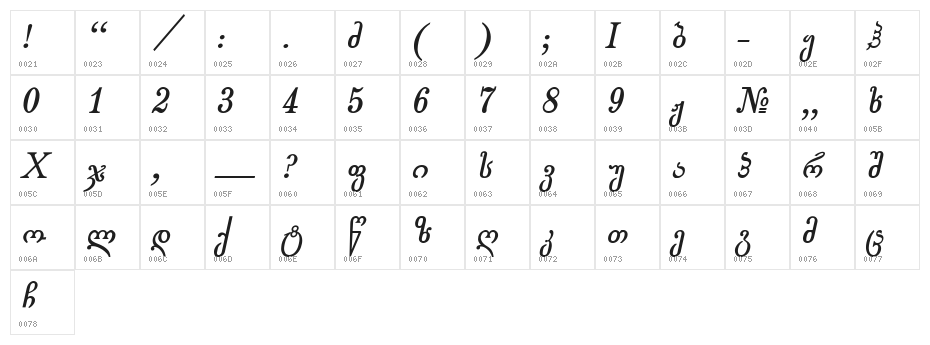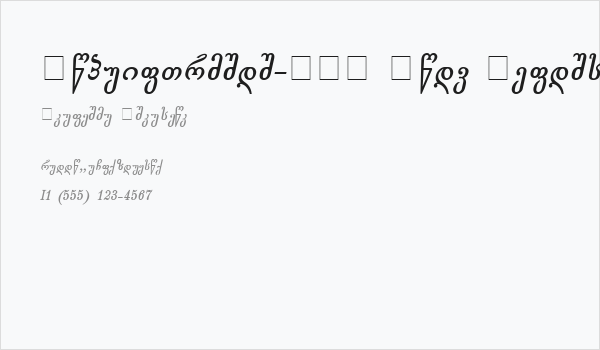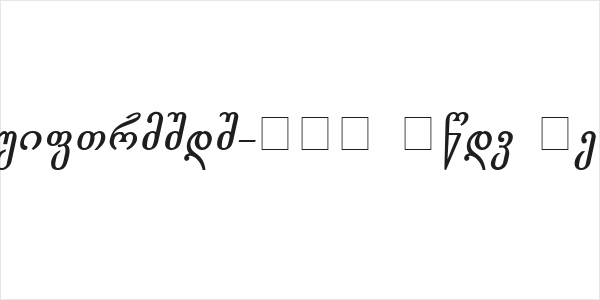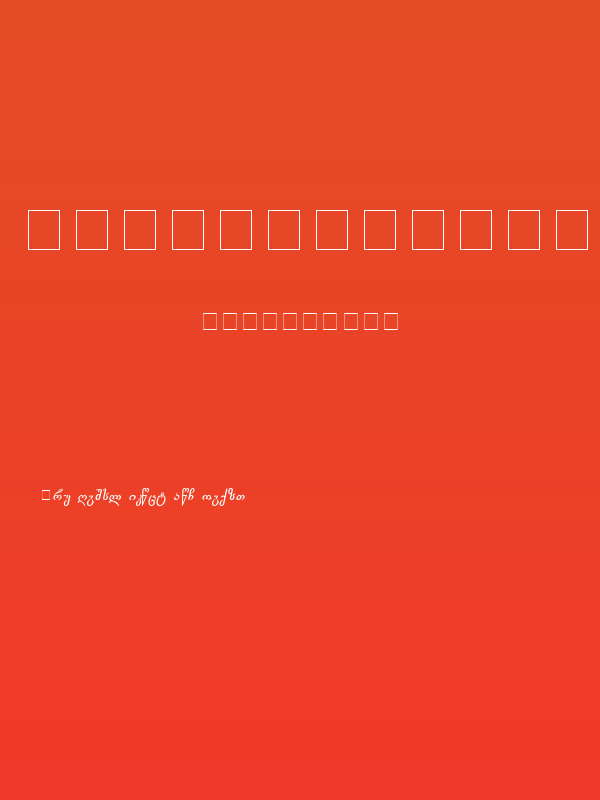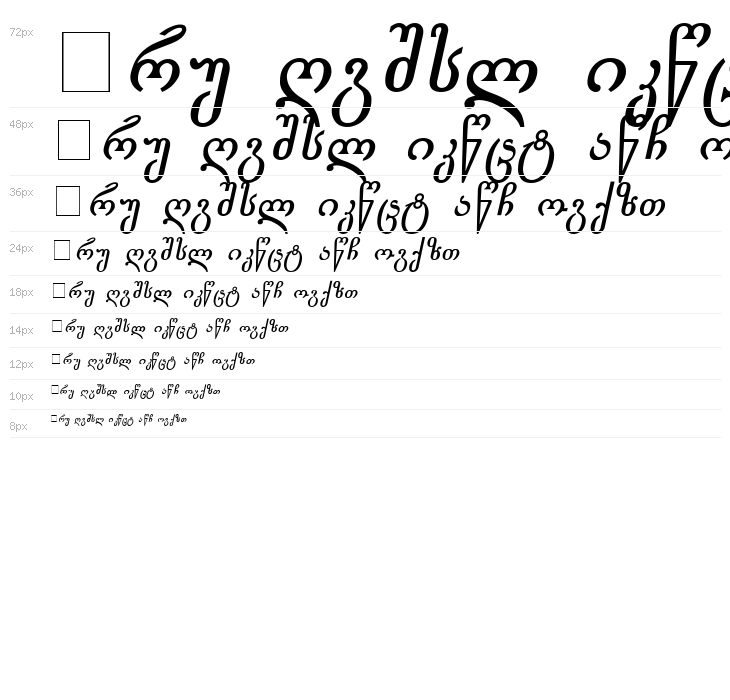
Gogebashvili-ITV Bold Italic Font
Gogebashvili-ITV Bold Italic Description
This font exhibits a bold and italicized style with a distinct flair. The characters are elegantly curved, showcasing a blend of traditional and modern elements. The strokes are thick, providing a strong presence on the page, while the italic slant adds a dynamic and sophisticated touch. The numerals are clear and bold, complementing the overall design. Special characters are uniquely styled, maintaining the font's cohesive look. This font is suitable for projects that require a bold statement with a touch of elegance.
Proposed ProjectsIdeal for branding, headlines, and editorial design where a bold and elegant statement is needed.